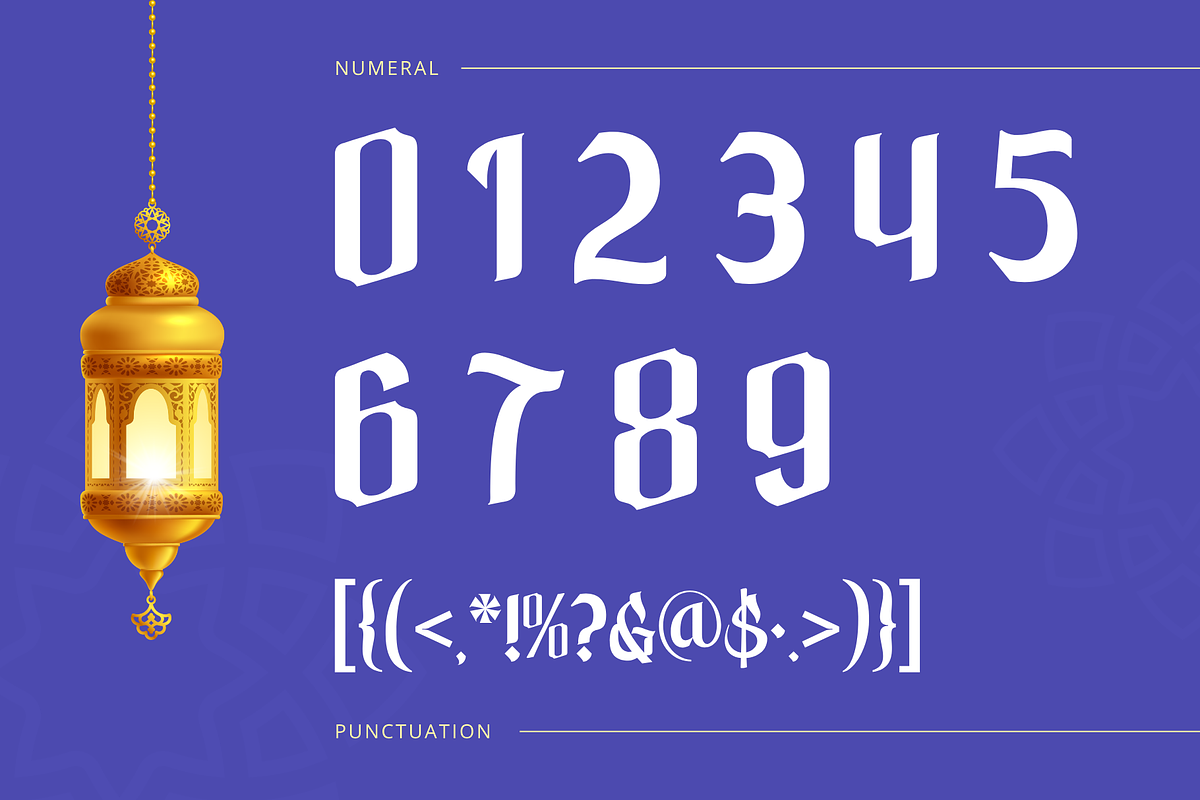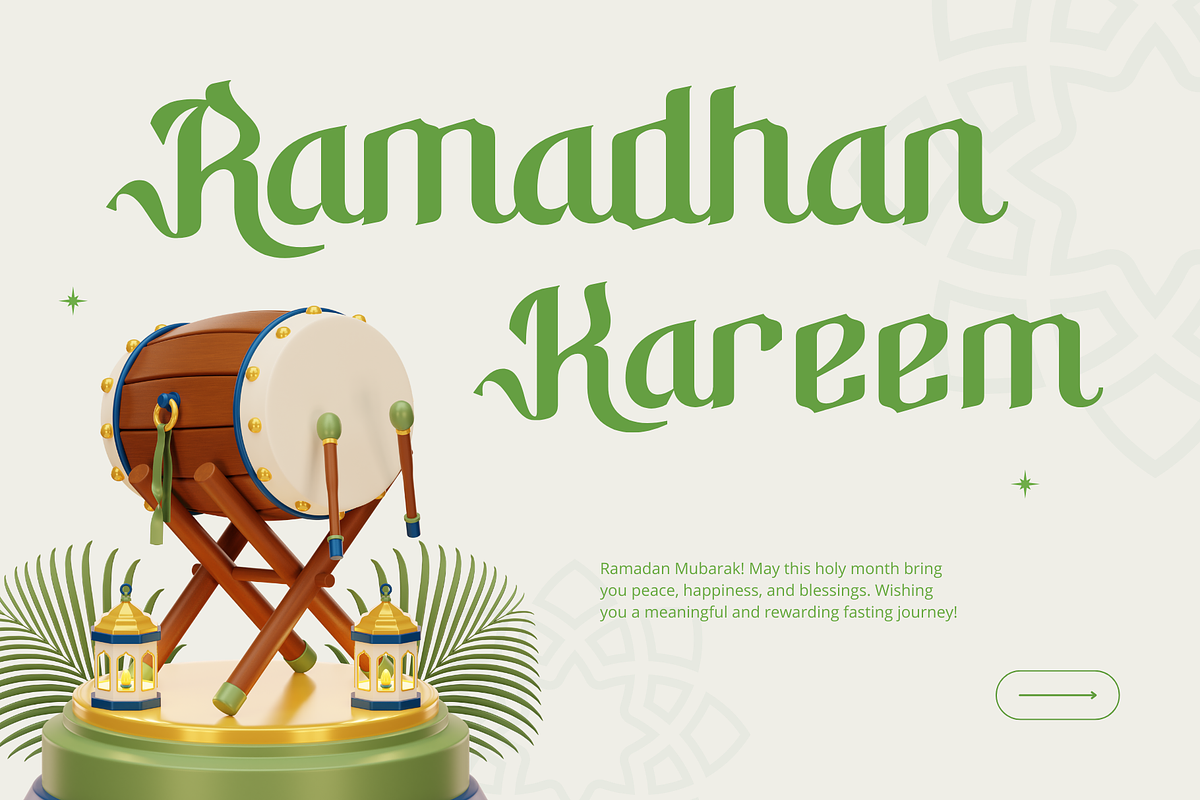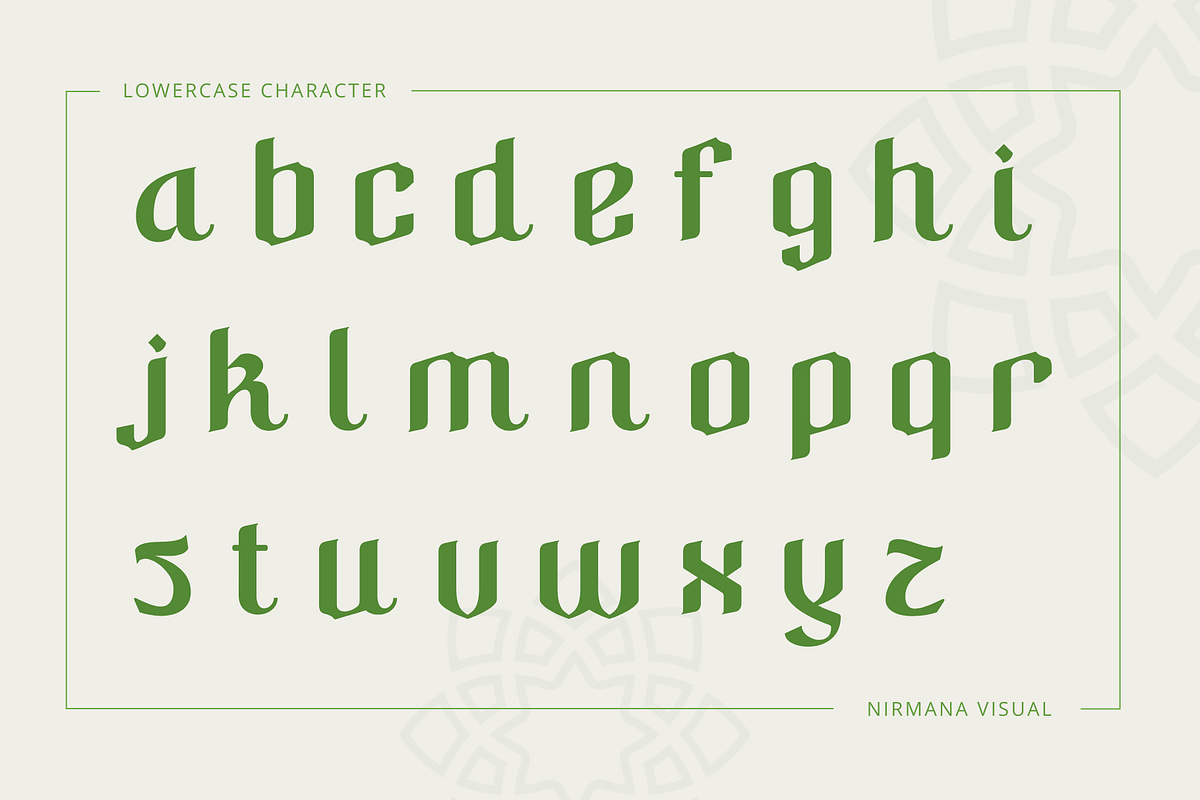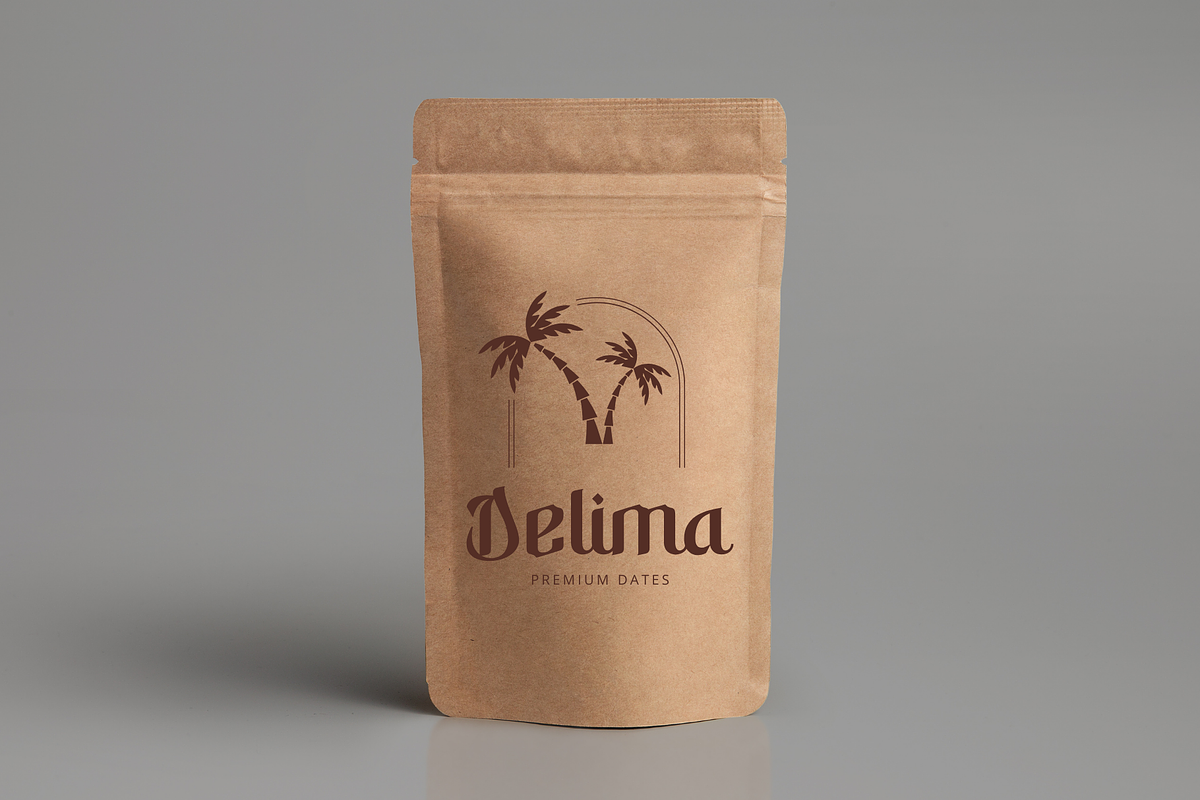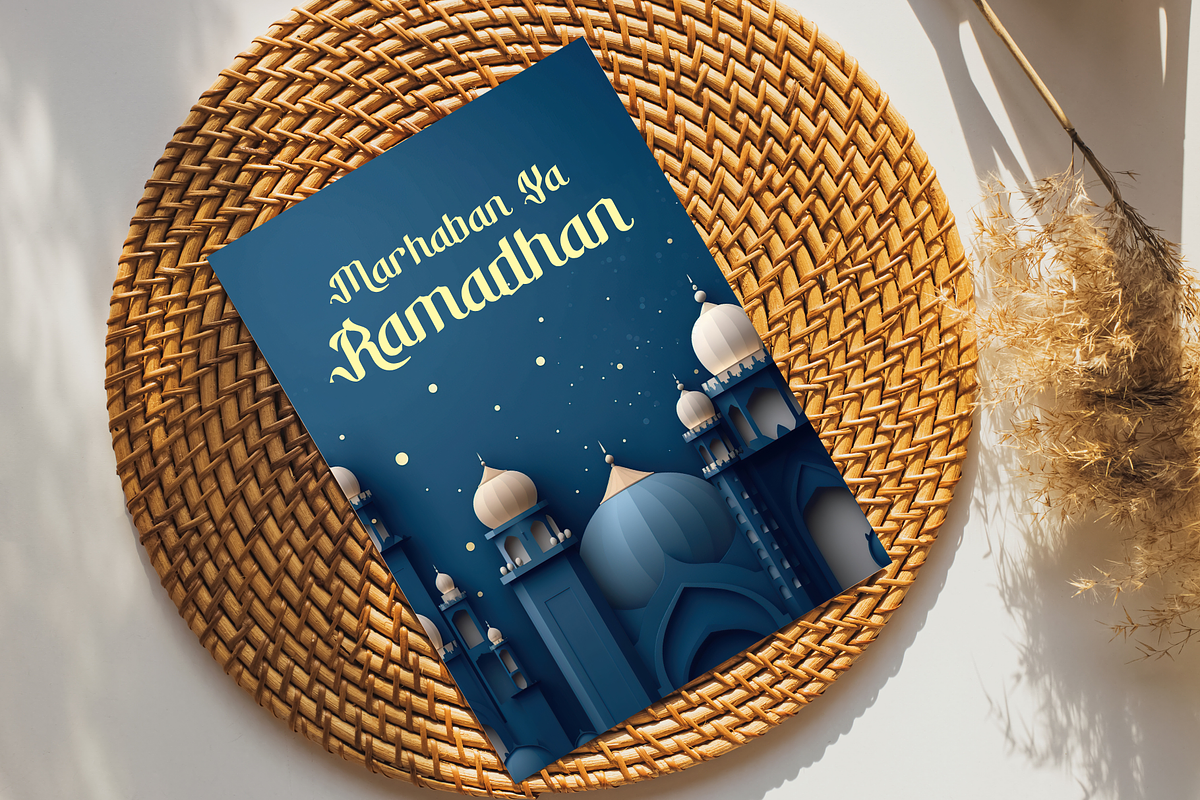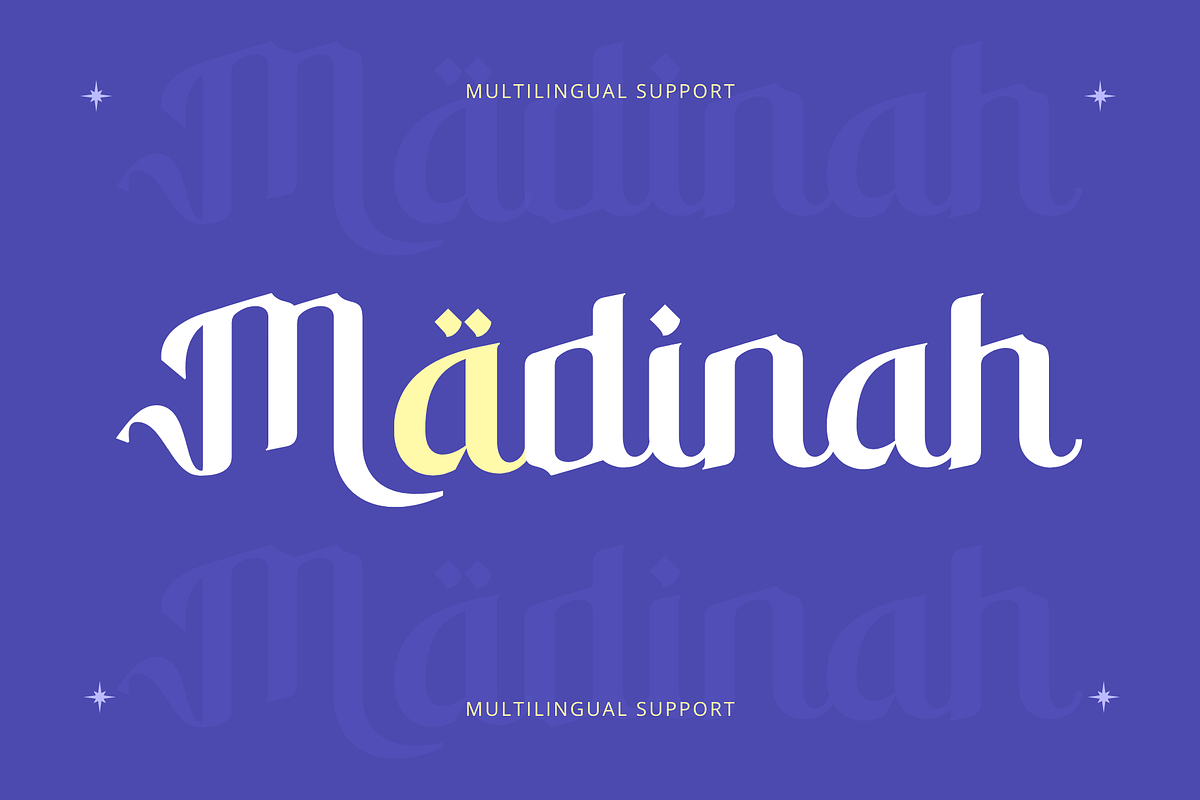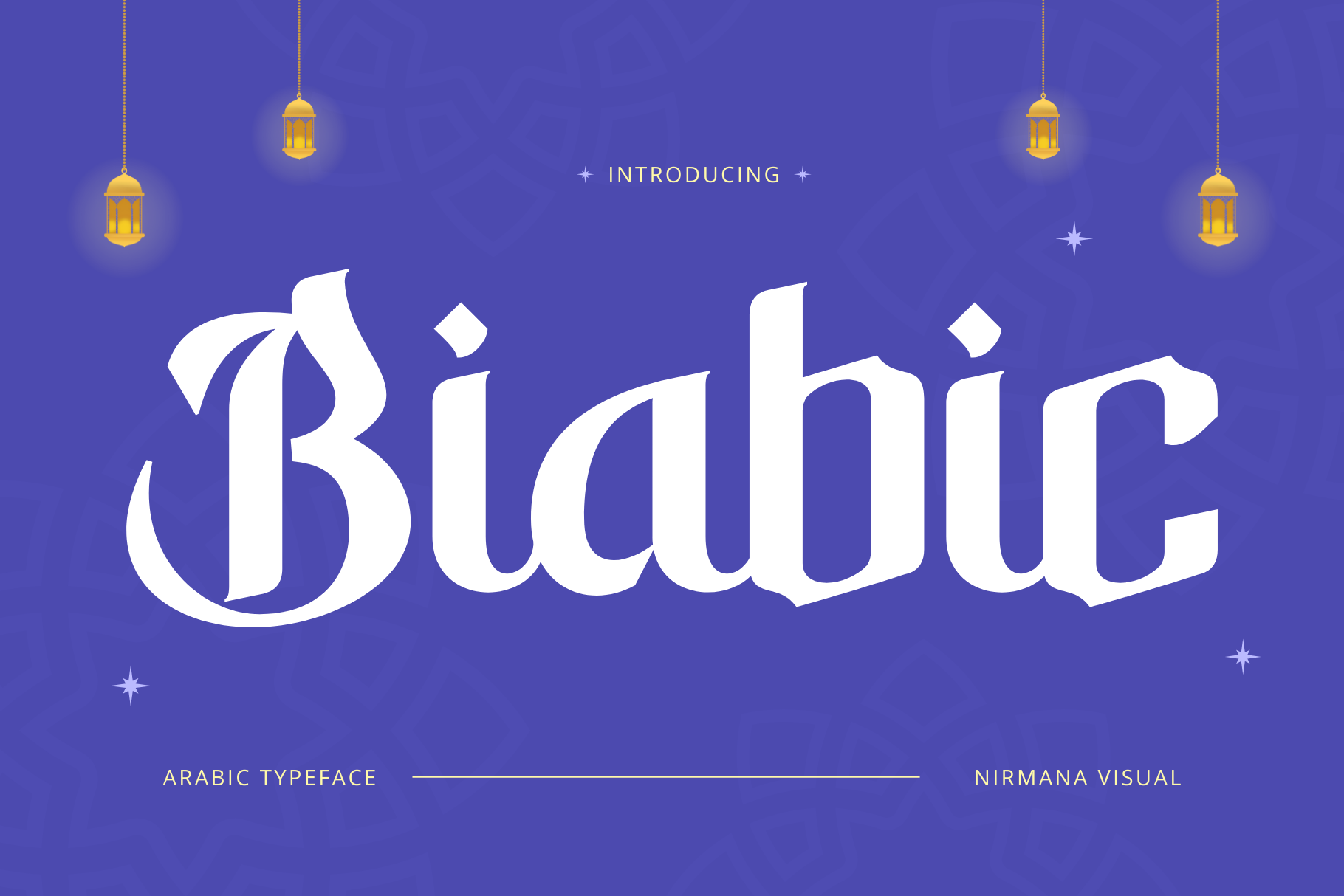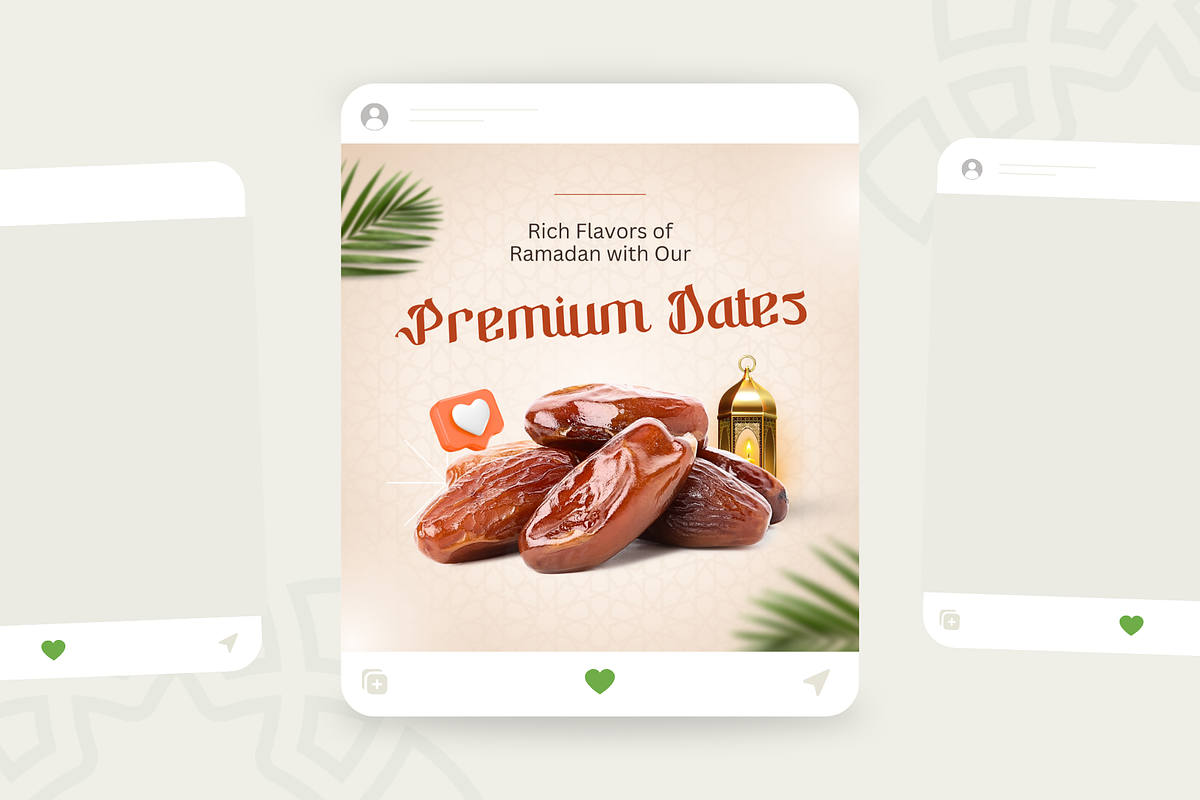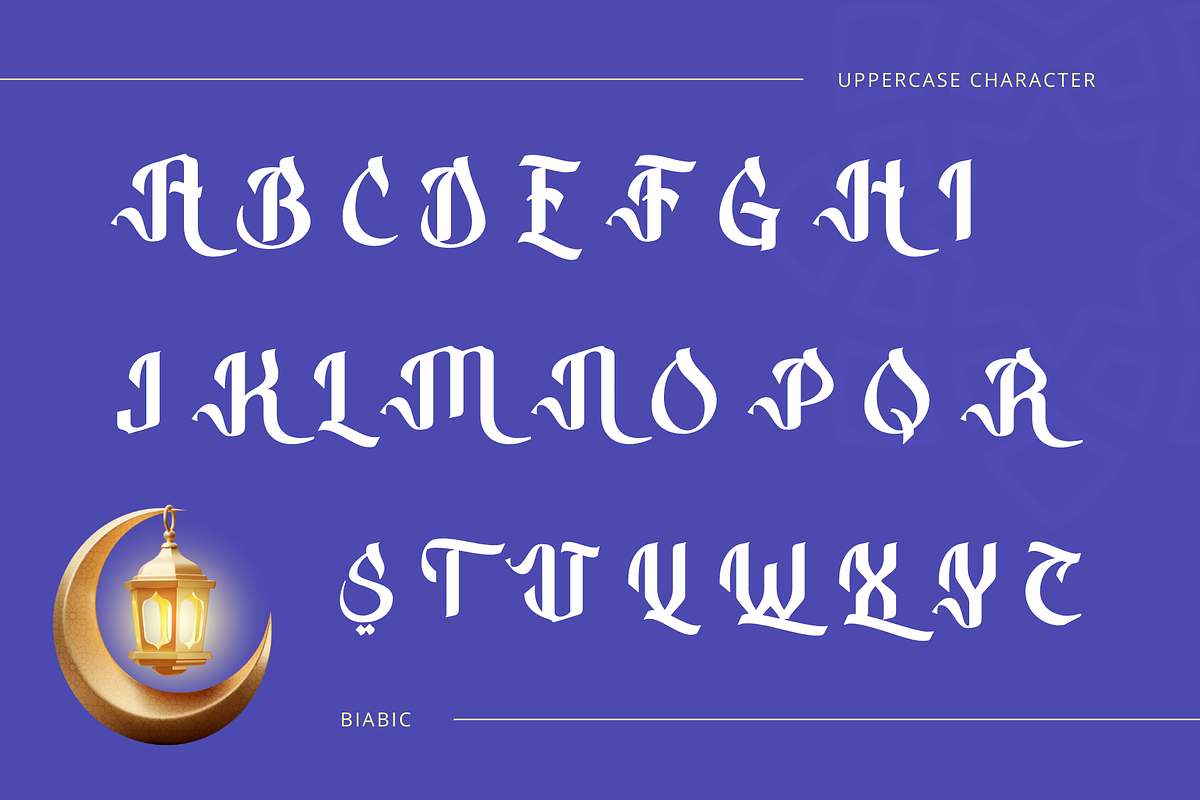
Biabic Arabic - Branding Logo Font
Biabic Arabic offers beautiful typographic harmony for a diversity of design projects, including logos & branding, social media posts, advertisements & product designs.